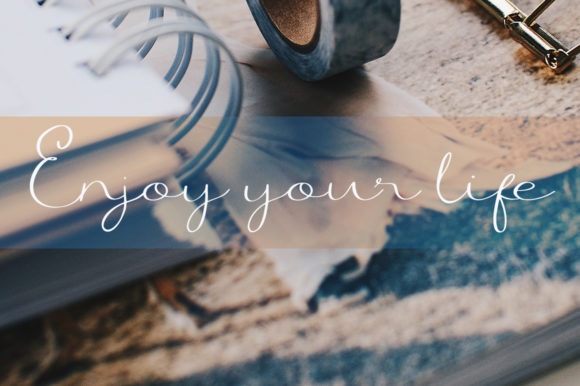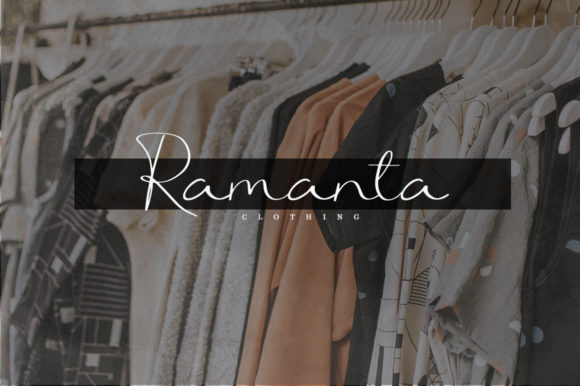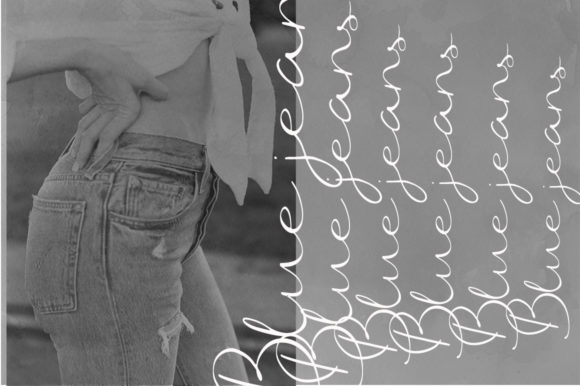
Introduction to Noctunal Font
Noctunal is a fresh, authentic and elegant font with a natural feel.
It will add a touch of sophistication to any design idea .
Key Features of Noctunal Font
Why Choose Noctunal Font?